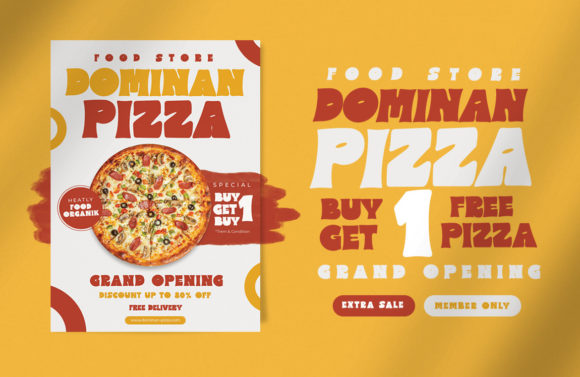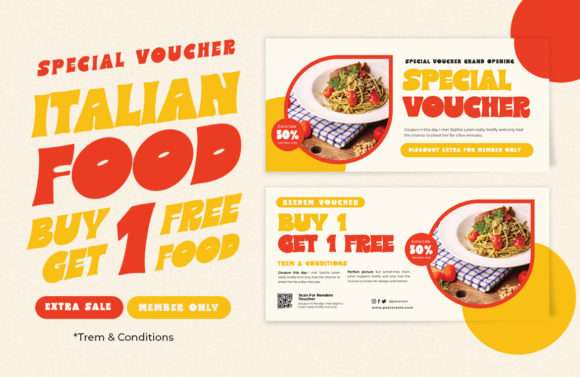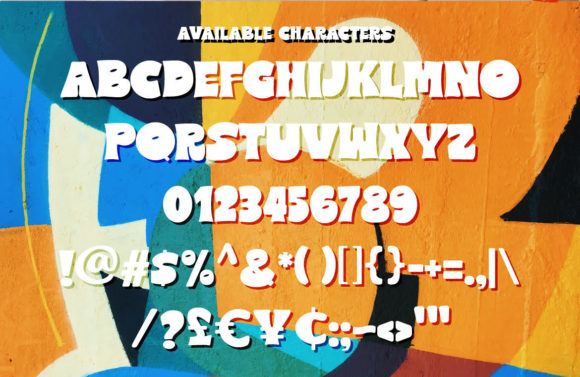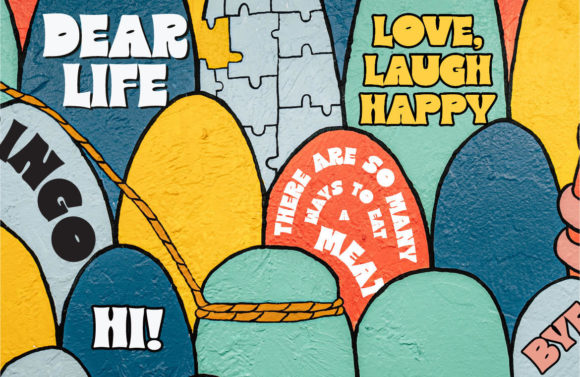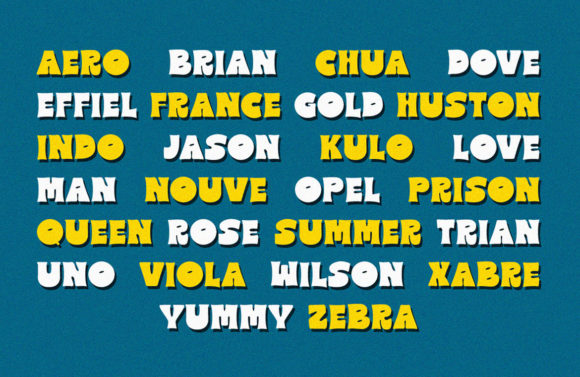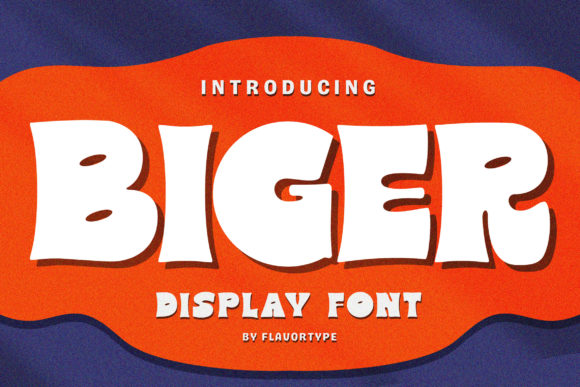
Biger Font: The Ultimate Display Font for Creative Designs
Are you tired of using the same old fonts for your designs? Look no further than Biger Font, a cool, thick lettered, and fun display font that’s perfect for taking your creative projects to the next level. In this article, we’ll dive into the world of Biger Font and explore its features, benefits, and uses, so you can make the most of this amazing font.
What is Biger Font?
Biger Font is a display font that’s designed to make a statement. Its thick, bold letters are perfect for creating eye-catching posters, branding materials, labels, and more. The font’s unique style is sure to grab attention and leave a lasting impression on your audience. Whether you’re a designer, crafter, or DIY enthusiast, Biger Font is an excellent addition to your font collection.
Key Features of Biger Font
• Cool and Fun Design: Biger Font boasts a modern, edgy design that’s perfect for creative projects. Its unique style is sure to add a touch of personality to your designs.
• Thick Lettered: The font’s thick letters make it perfect for display purposes, ensuring your text stands out from the crowd.
• Versatile: Biger Font works incredibly well on a variety of design materials, including posters, branding, labels, and more.
• Easy to Read: Despite its bold design, Biger Font is easy to read, making it perfect for headlines, titles, and short texts.
Benefits of Using Biger Font
So, why should you choose Biger Font for your designs? Here are just a few benefits of using this amazing font:
• Adds Personality to Your Designs: Biger Font’s unique style adds a touch of personality to your designs, setting them apart from the rest.
• Increases Visibility: The font’s bold design ensures your text stands out, even from a distance.
• Perfect for Branding: Biger Font is an excellent choice for branding materials, helping you create a consistent and recognizable visual identity.
• Easy to Pair with Other Fonts: Biger Font pairs well with a variety of other fonts, making it easy to create visually appealing combinations.
Creative Uses for Biger Font
The possibilities are endless when it comes to using Biger Font. Here are a few ideas to get you started:
• Posters and Flyers: Use Biger Font to create eye-catching posters and flyers that grab attention.
• Branding and Logo Design: Biger Font is perfect for creating bold, memorable logos and branding materials.
• Labels and Stickers: Add a touch of personality to your labels and stickers with Biger Font.
• Social Media Graphics: Use Biger Font to create visually appealing social media graphics that stand out.
Tips for Using Biger Font
To get the most out of Biger Font, here are a few tips to keep in mind:
• Use it Sparingly: Biger Font is bold and attention-grabbing, so use it sparingly to avoid overwhelming your designs.
• Pair it with Other Fonts: Experiment with pairing Biger Font with other fonts to create visually appealing combinations.
• Adjust the Size and Color: Play around with different sizes and colors to find the perfect combination for your design.
In conclusion, Biger Font is an amazing display font that’s perfect for creative designers and crafters. Its cool, thick lettered, and fun design makes it an excellent addition to any font collection. With its versatility, ease of use, and bold style, Biger Font is sure to take your designs to the next level. So why wait? Download Biger Font today and start creating stunning designs that grab attention!